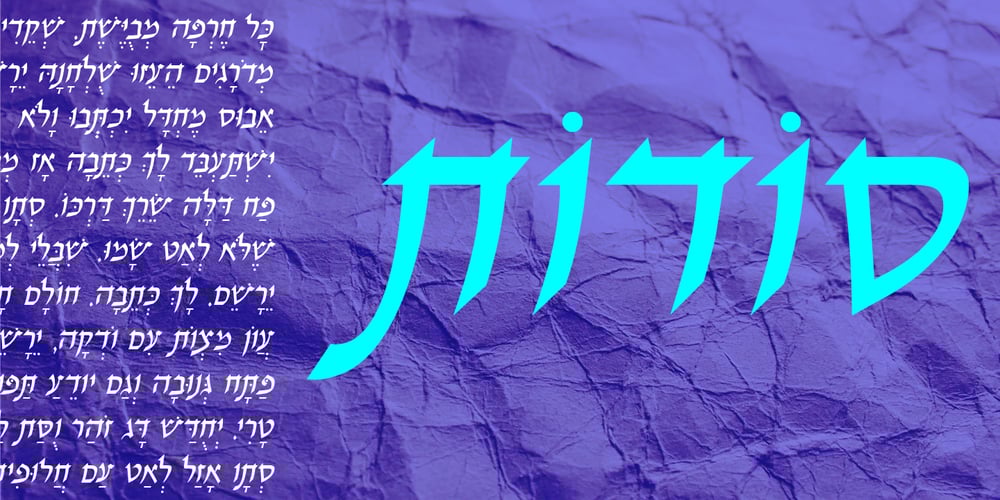
Klaf MF
Klaf MF font
Klaf MF Font Family was designed by Zvika Rosenberg and published by Masterfont. Klaf MF contains 4 styles and family package options. Gentle feather strokes make this font an elegant companion for whatever need the traditional touch.